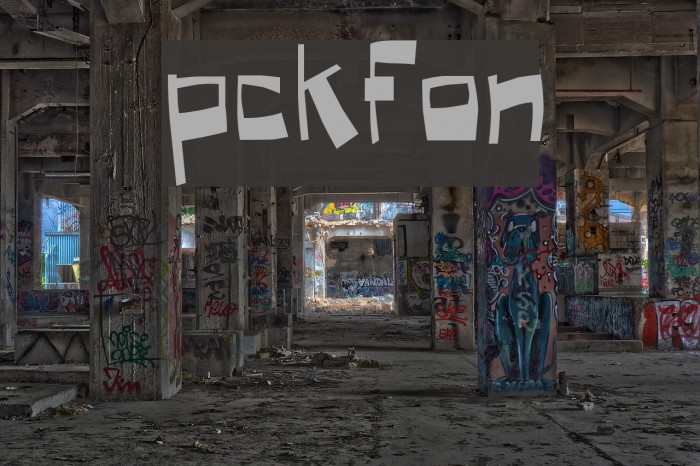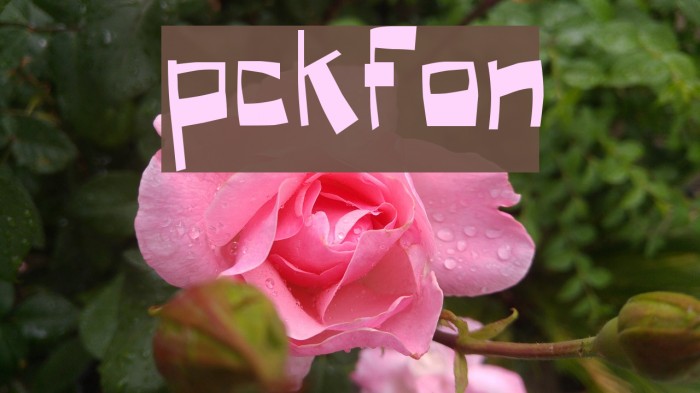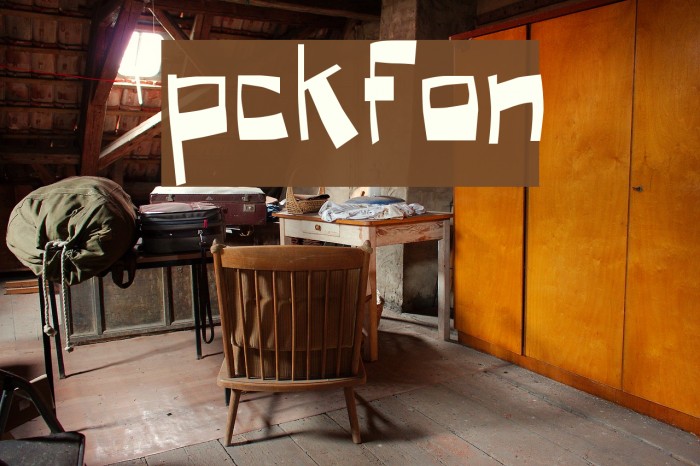
Puckfont Font
This font features a bold and dynamic style with sharp, angular edges and a slightly irregular form that gives it a unique, edgy appearance. The characters are designed with a playful yet aggressive flair, making them stand out with their distinct geometric shapes. The uppercase and lowercase letters share a consistent design language, while the numbers and special characters maintain the same bold and striking aesthetic. The font's design is reminiscent of graffiti or street art, with a modern twist that makes it suitable for contemporary designs.
A bold, angular font with a dynamic and edgy style.
- Proposed Projects: Ideal for use in urban-themed designs, posters, album covers, and branding projects that require a bold, standout typeface.